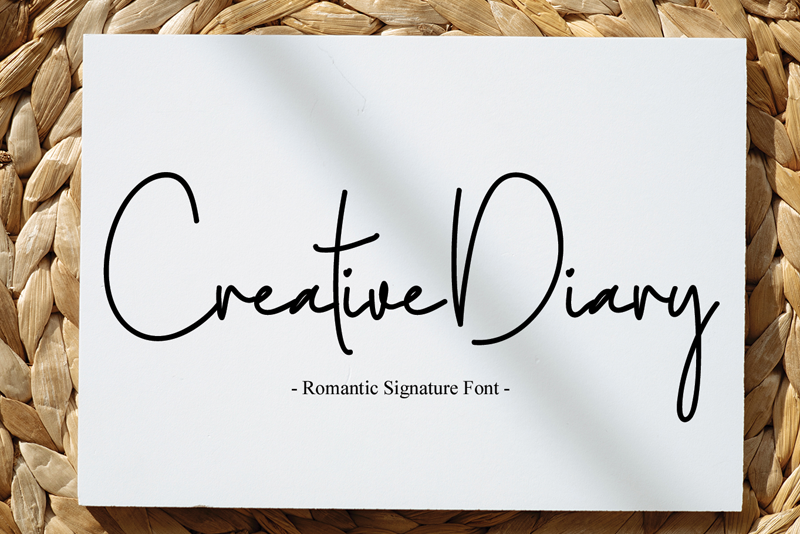
Font name: | Creative Diary |
Author: | Behind the Ink |
Creative Diary is an exquisite handwritten font, masterfully designed to become a true favorite. It maintains its classy calligraphic influences while feeling contemporary and fresh. Attention : Creative Diary handwriting Font is prohibited to use this font for commercial purposes or for profit without the permission of the author/admin, without being known to use this font without permission, will be subject to sanctions 5x the specified price. This font is used only for demos (Demo license) If you want to use this font for commercial use please contact email: luluksurotul123@gmail.com or click the link below: https://www.creativefabrica.com/product/creative-diary/ref/698281/ If you want to see more other fonts, please click: https://www.creativefabrica.com/designer/behind-the-ink/ref/698281/ Any donations are very appreciated. thanks. |